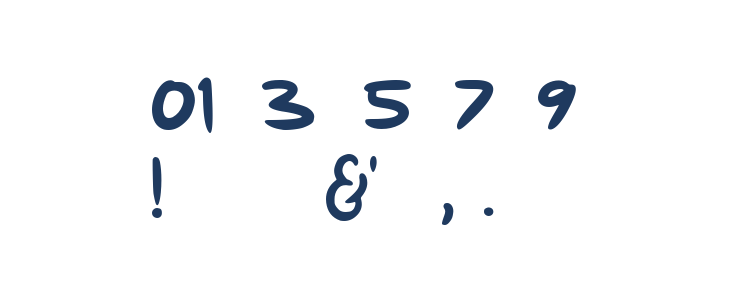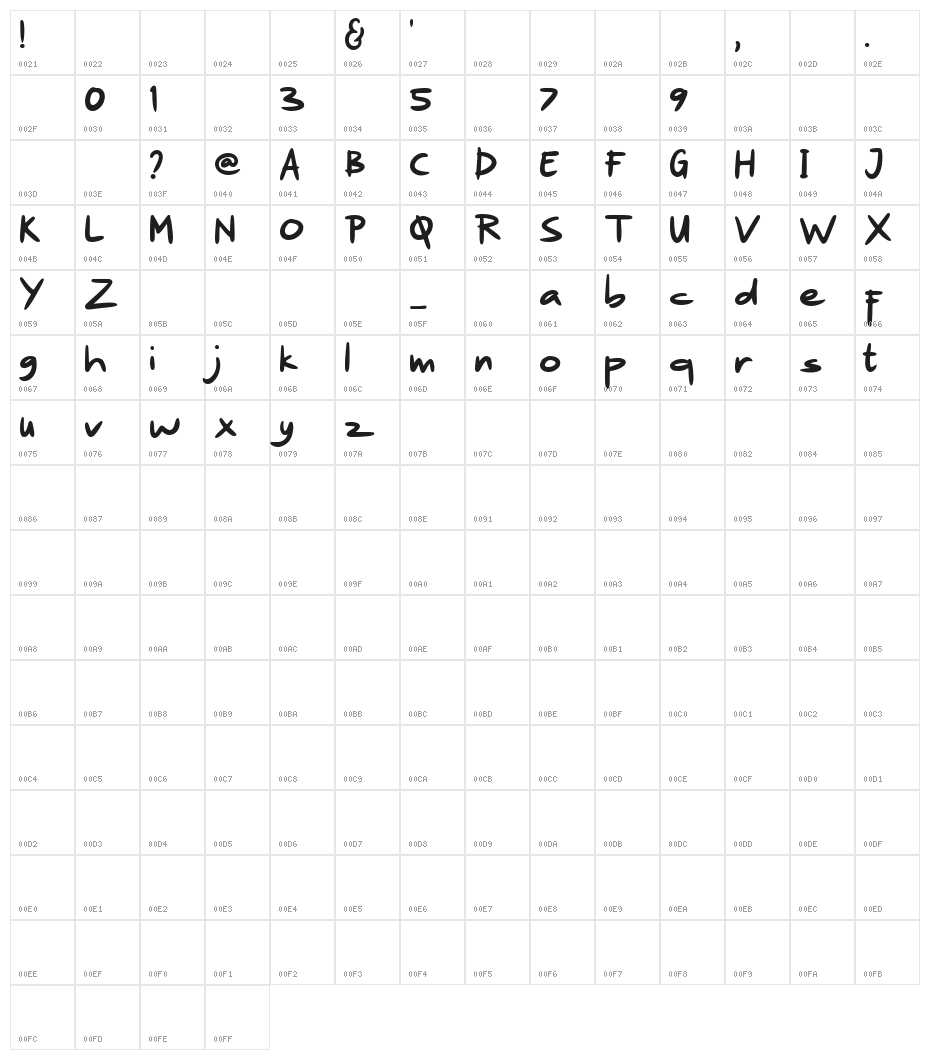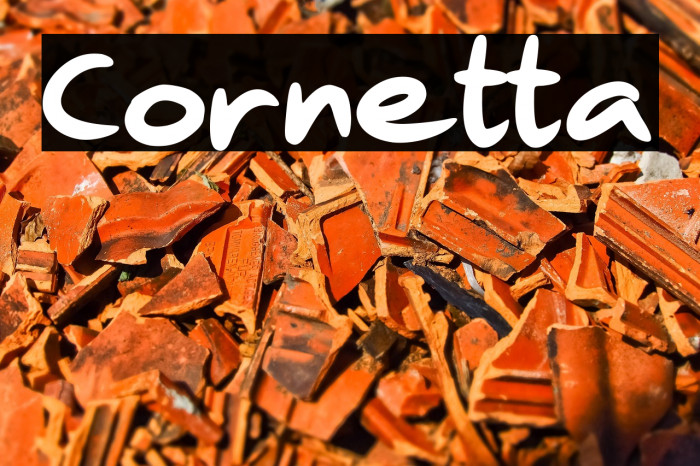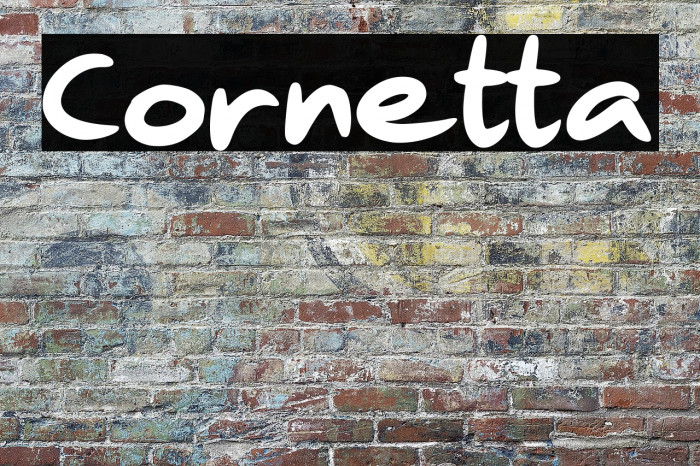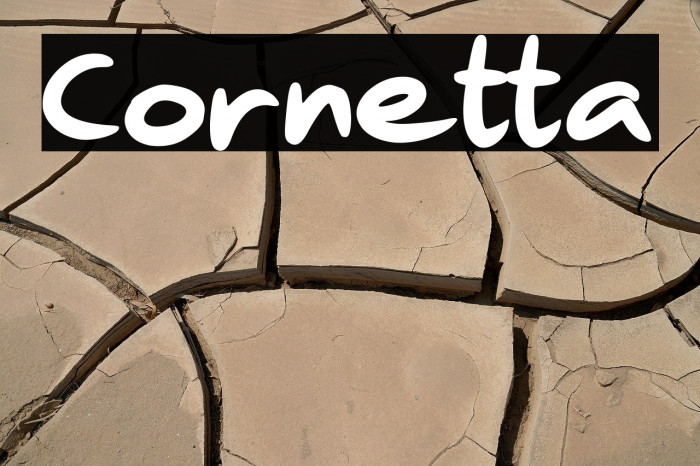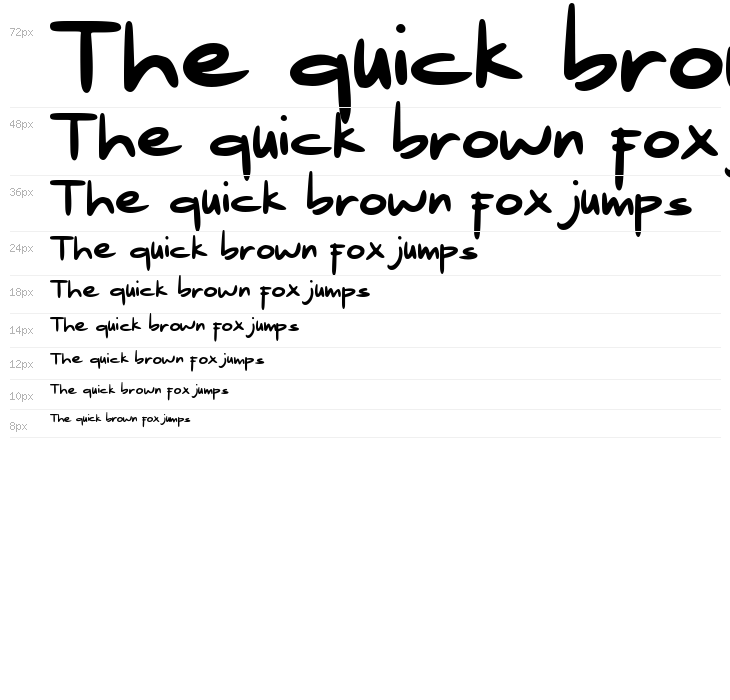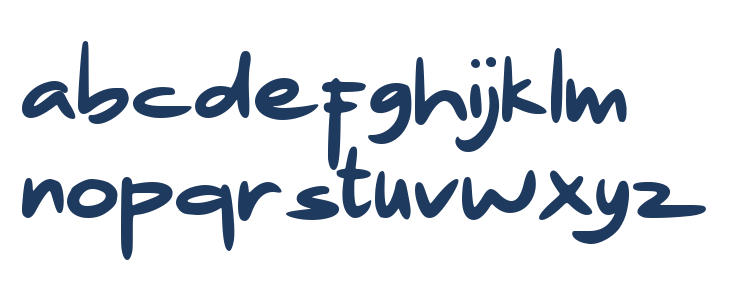
Cornetta Font
Cornetta Description
This playful and energetic font features a handwritten style with bold, rounded strokes that convey a sense of friendliness and approachability. The letters have a casual, informal appearance, with varying stroke widths that add a dynamic feel to the text. The uppercase and lowercase letters maintain a consistent style, while the numerals and special characters integrate seamlessly, enhancing the font's versatility. The overall design is reminiscent of a marker or brush pen, making it suitable for creative and informal applications.
| Overall Style | Playful |
| Use Case | Headlines, Posters, Branding |
| Proposed Projects | Ideal for children's books, greeting cards, posters, and branding projects that require a friendly and approachable look. |